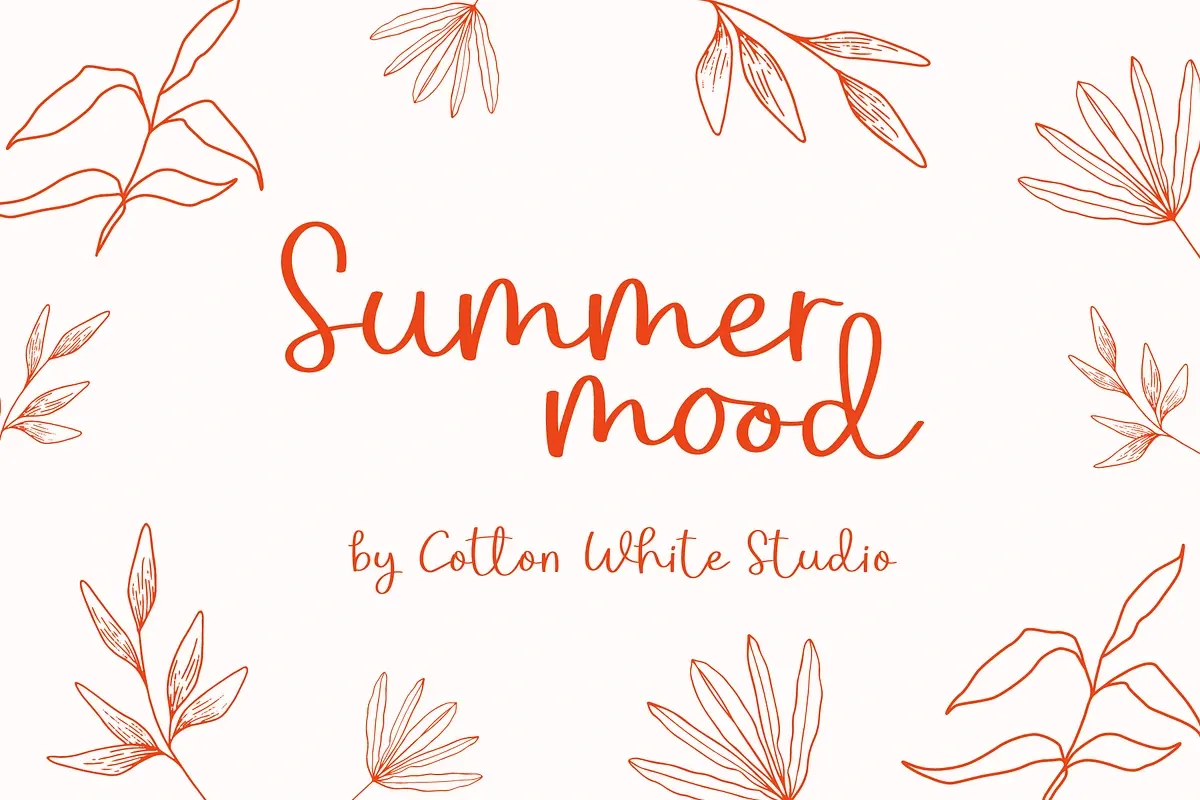
The Summer Mood Font Free Download is a bright and playful typeface that captures the carefree energy of sunny days and warm adventures. Perfect for beach party flyers, summer product packaging, vacation blogs, greeting cards, and fun social media graphics, this font brings a vibrant, relaxed vibe to any project.
With its rounded, friendly letterforms and hand-drawn charm, Summer Mood adds a splash of joy to your typography. It includes uppercase and lowercase letters, numbers, punctuation, and multilingual support—ensuring versatility while keeping the fun front and center.